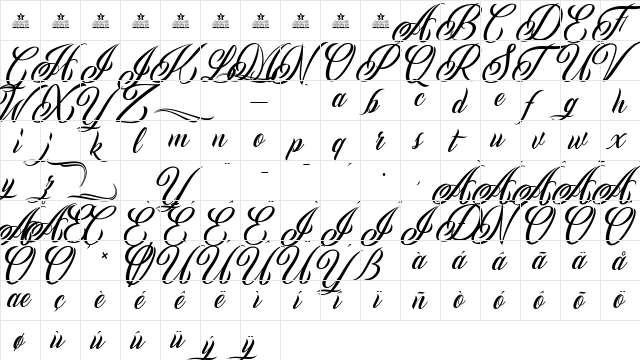
Inked Babes Regular
| Foundry | Billy Argel |
| Designer | Billy Argel |
Design Context for Inked Babes Typeface
Inked Babes is a composed and adaptable typeface that performs quietly and consistently across a wide range of design contexts.